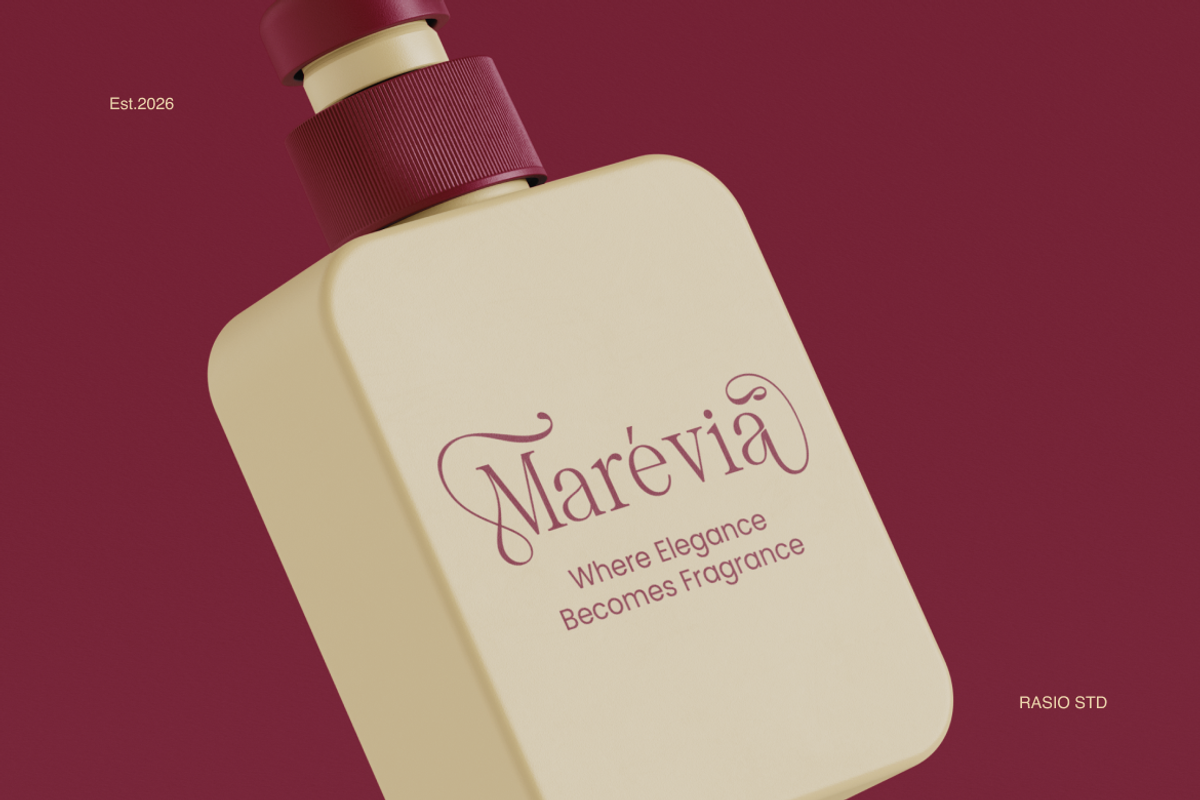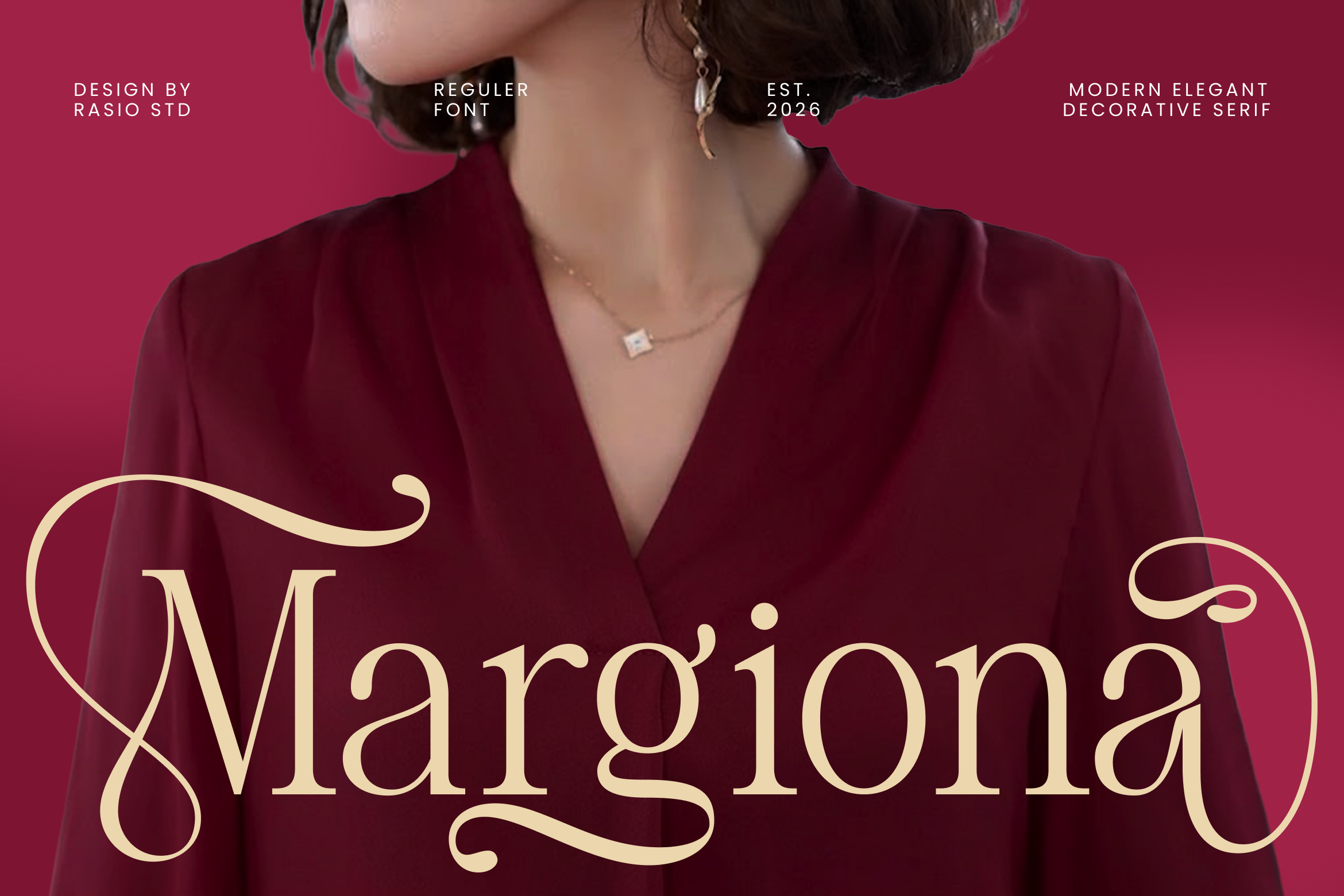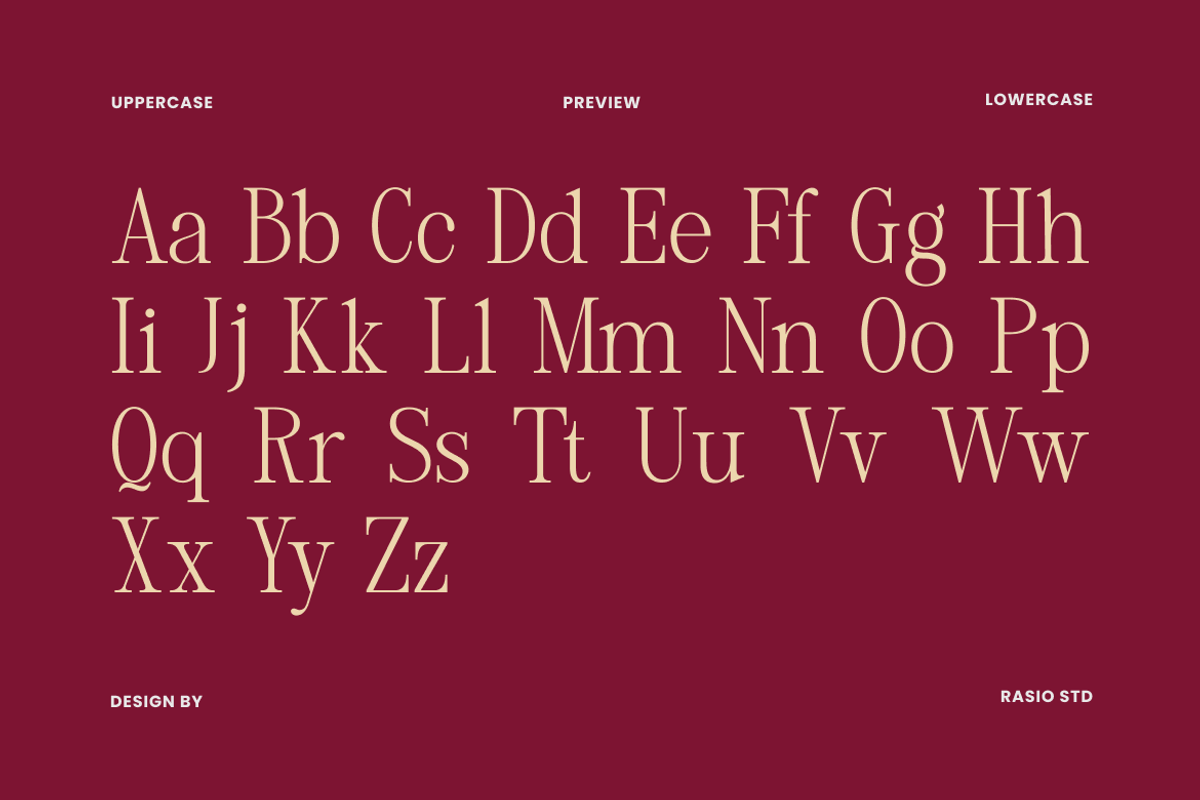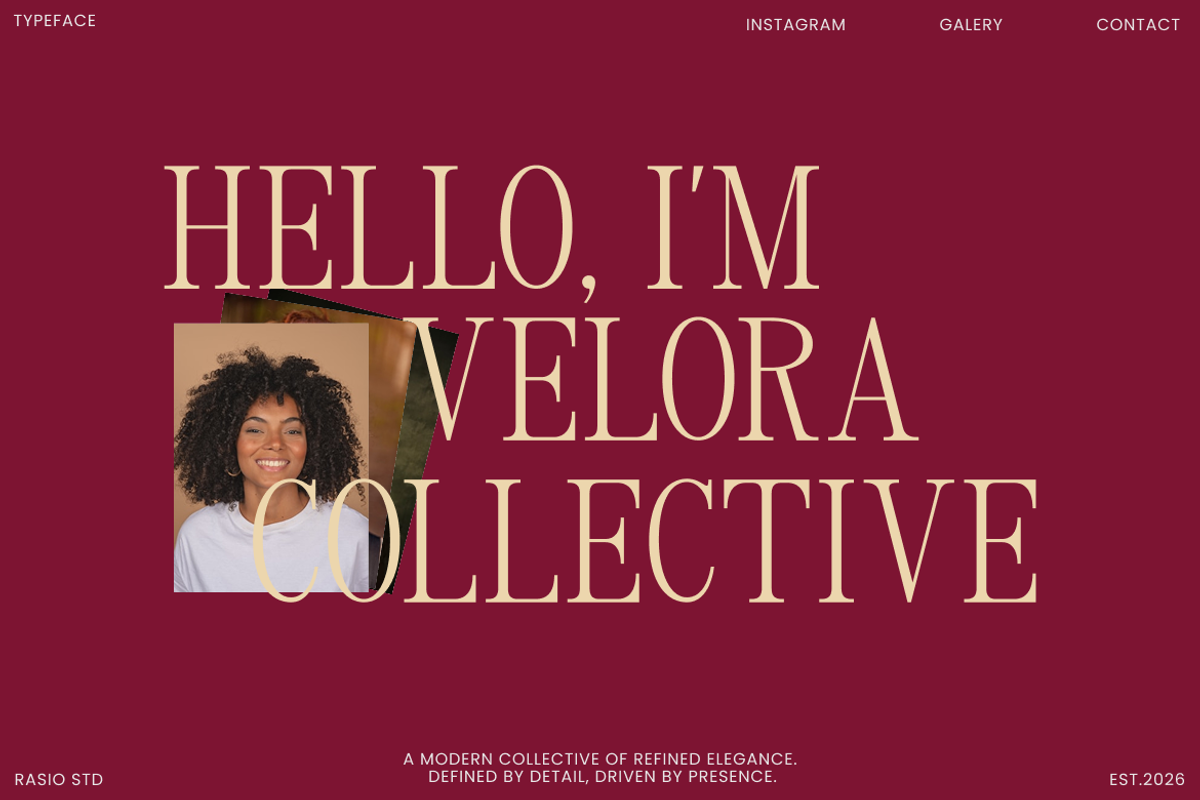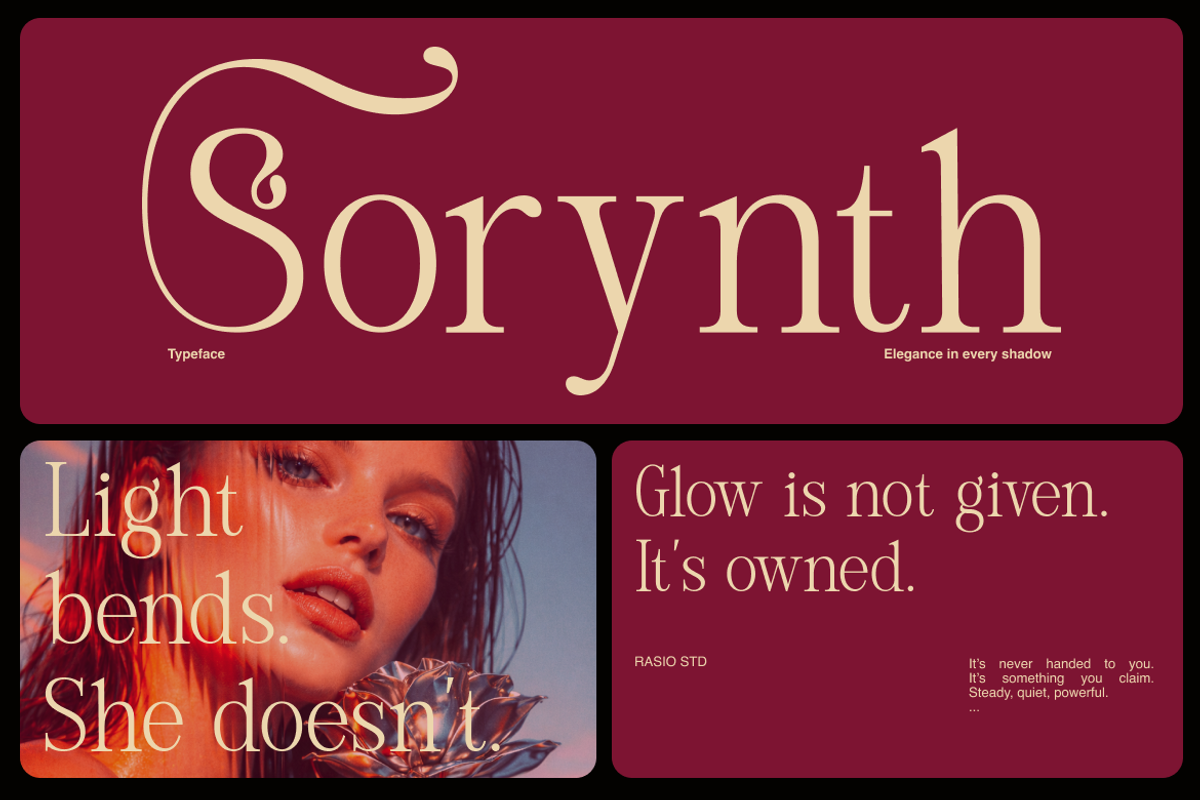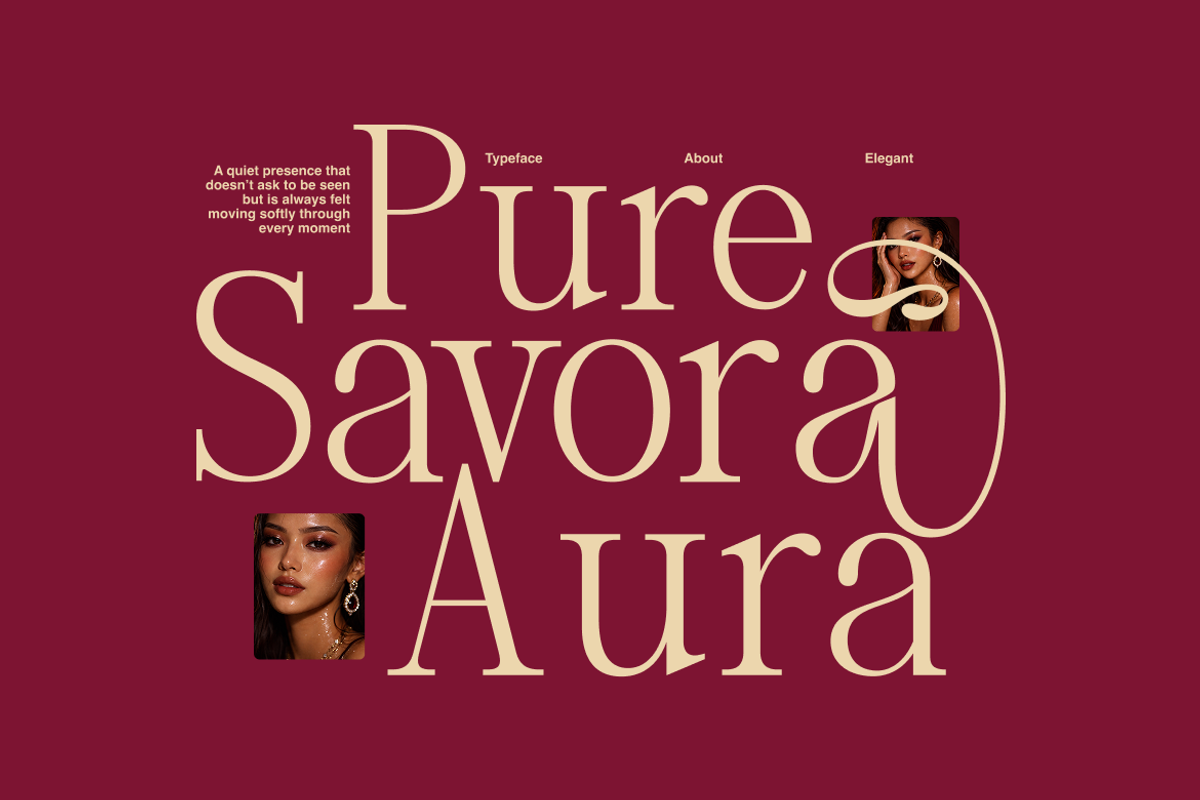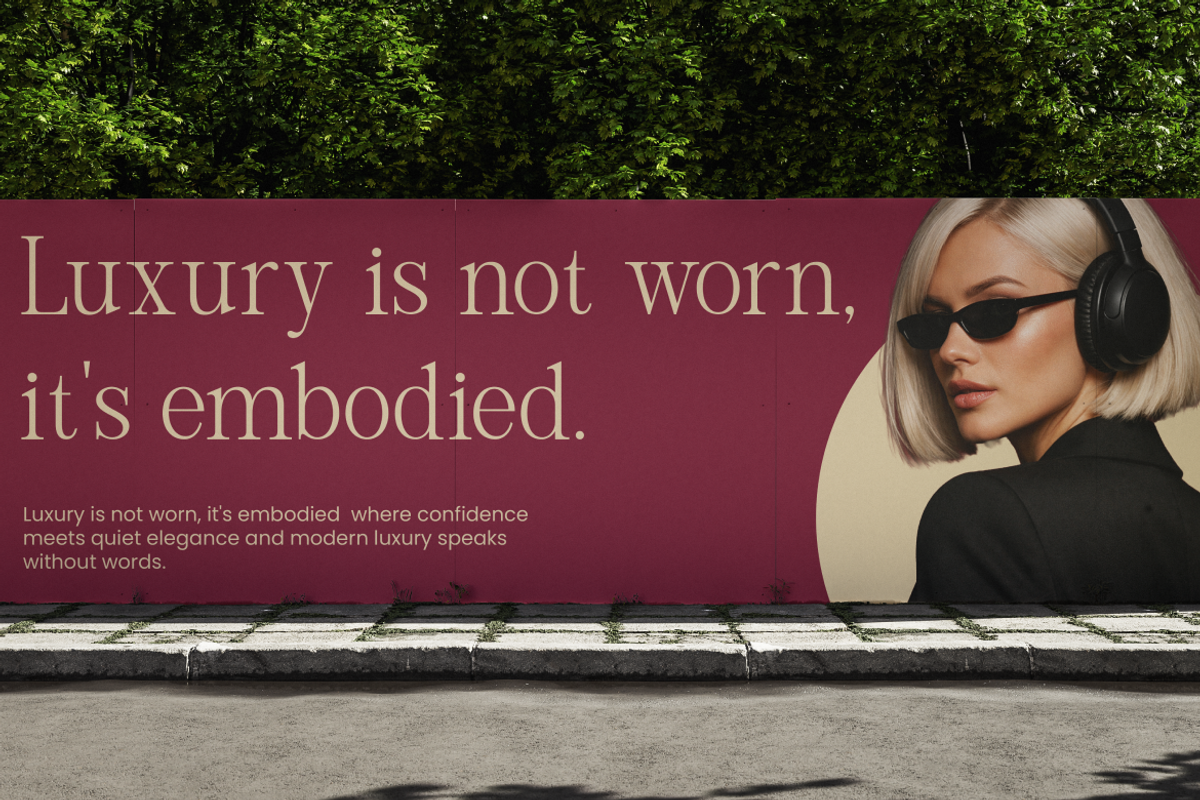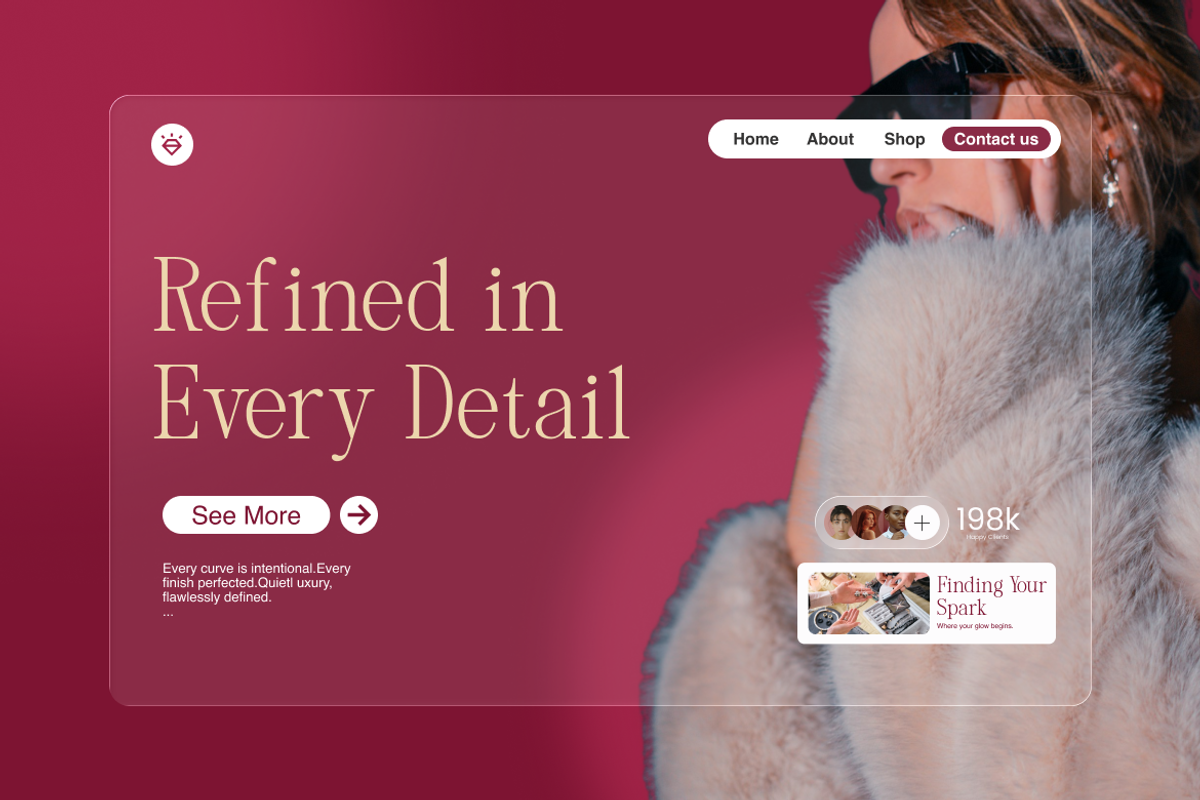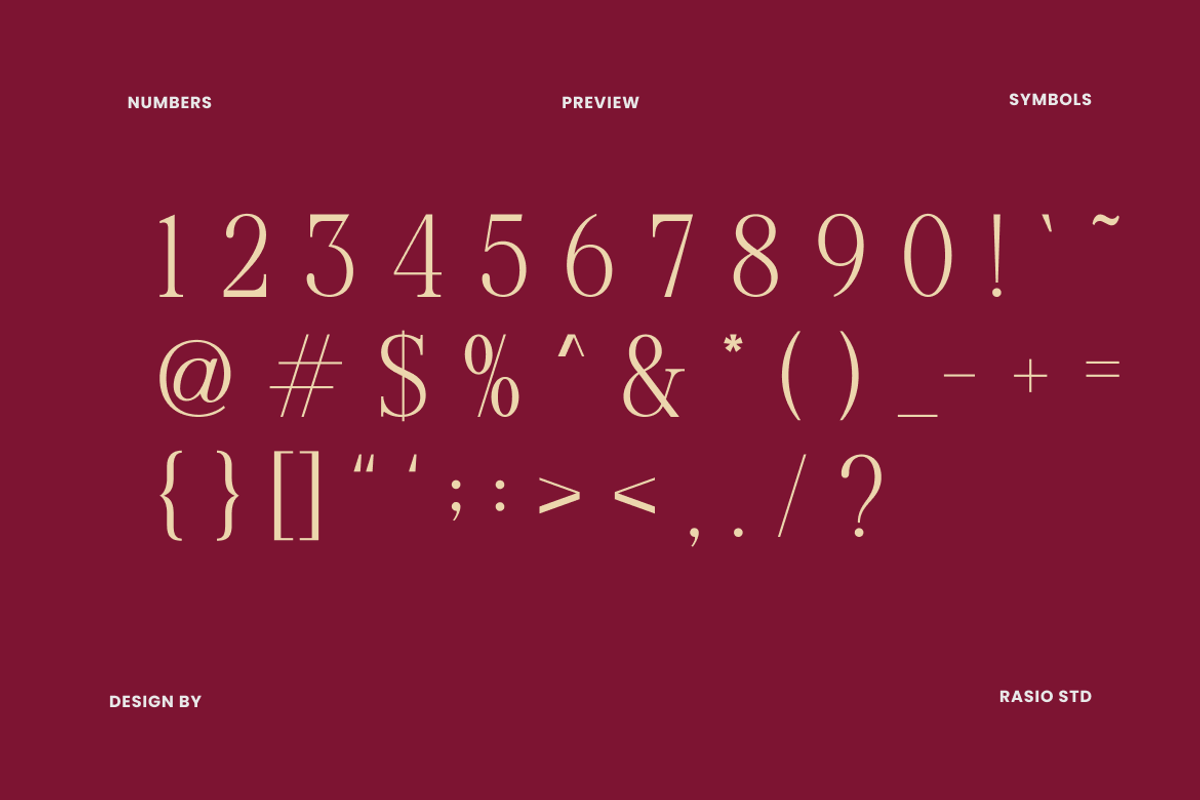
Margiona Modern Elegant Serif Font
Margiona Elegant Decorative Serif is a refined luxury typeface featuring graceful serif construction with delicate ornamental swashes and sophisticated letter proportions. The design blends classic editorial elegance with modern decorative styling, creating a timeless visual presence for premium branding and artistic typography. Includes uppercase, lowercase, numerals, and punctuation in fully editable font files suitable for print and digital projects.
Relevance and Use Cases is perfect for luxury branding, fashion editorials, beauty packaging, wedding stationery, boutique logos, premium product labels, magazine headlines, and elegant social media designs requiring refined and decorative serif typography. Crafted with polished details and high readability, this typeface delivers a stylish balance of softness, sophistication, and expressive character.
- High-contrast elegant serif with refined editorial proportions
- Graceful swashes and ornamental flourishes for luxurious character
- Delicate hairlines balanced with classic sophisticated stroke contrast
- Soft curved terminals and stylish serif details for timeless appeal
- Designed for premium branding, fashion headlines, and upscale editorial typography
- Luxury brand identity systems seeking elegant and sophisticated character
- Fashion editorials, beauty campaigns, and premium magazine layouts
- High-end packaging, cosmetic labels, and boutique product branding
- Wedding stationery, invitation suites, and romantic event designs
- Social media graphics, logo design, and upscale marketing materials with elegance
- Screen-optimized kerning for responsive web design Supports numerals, punctuation, and extensive symbol set